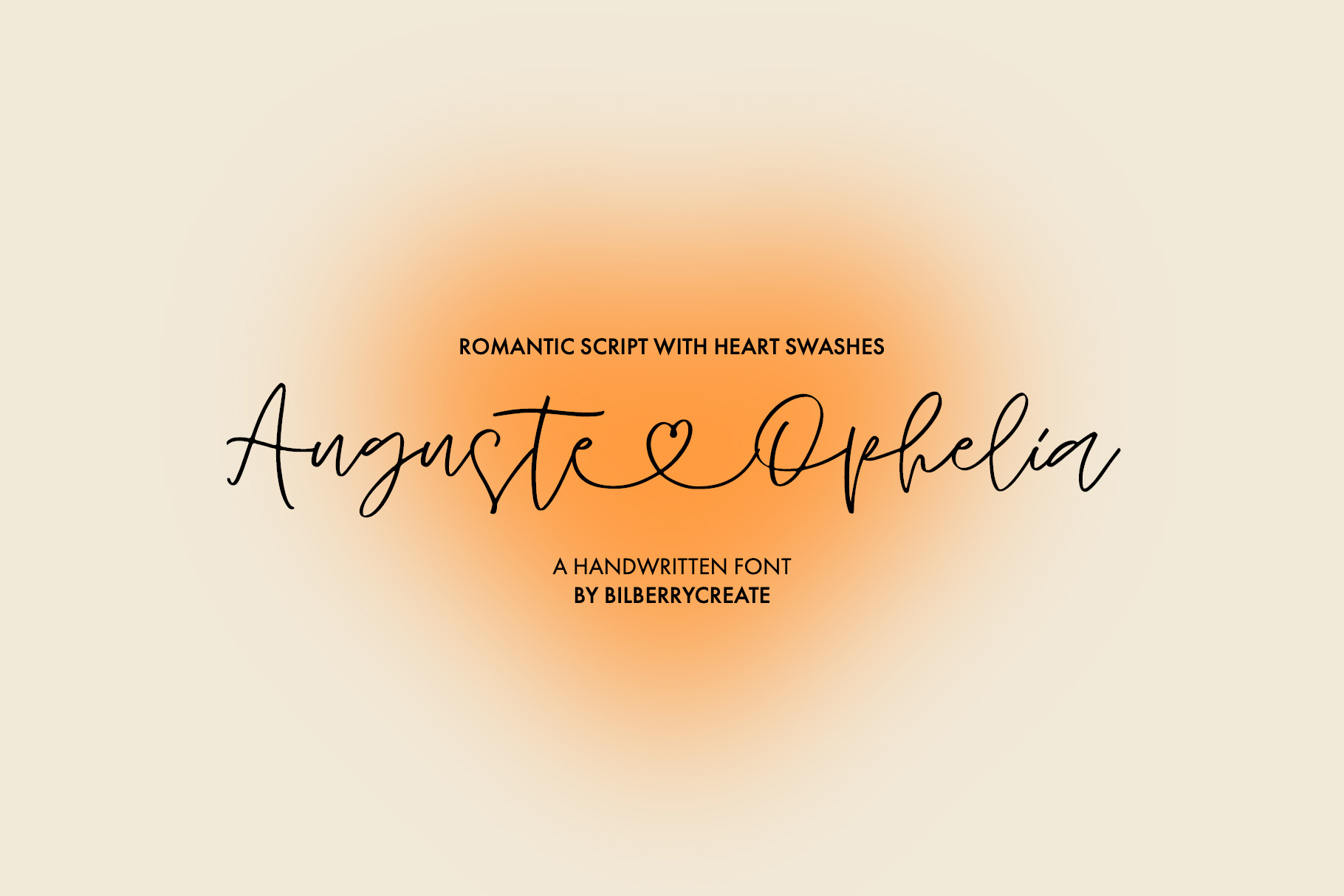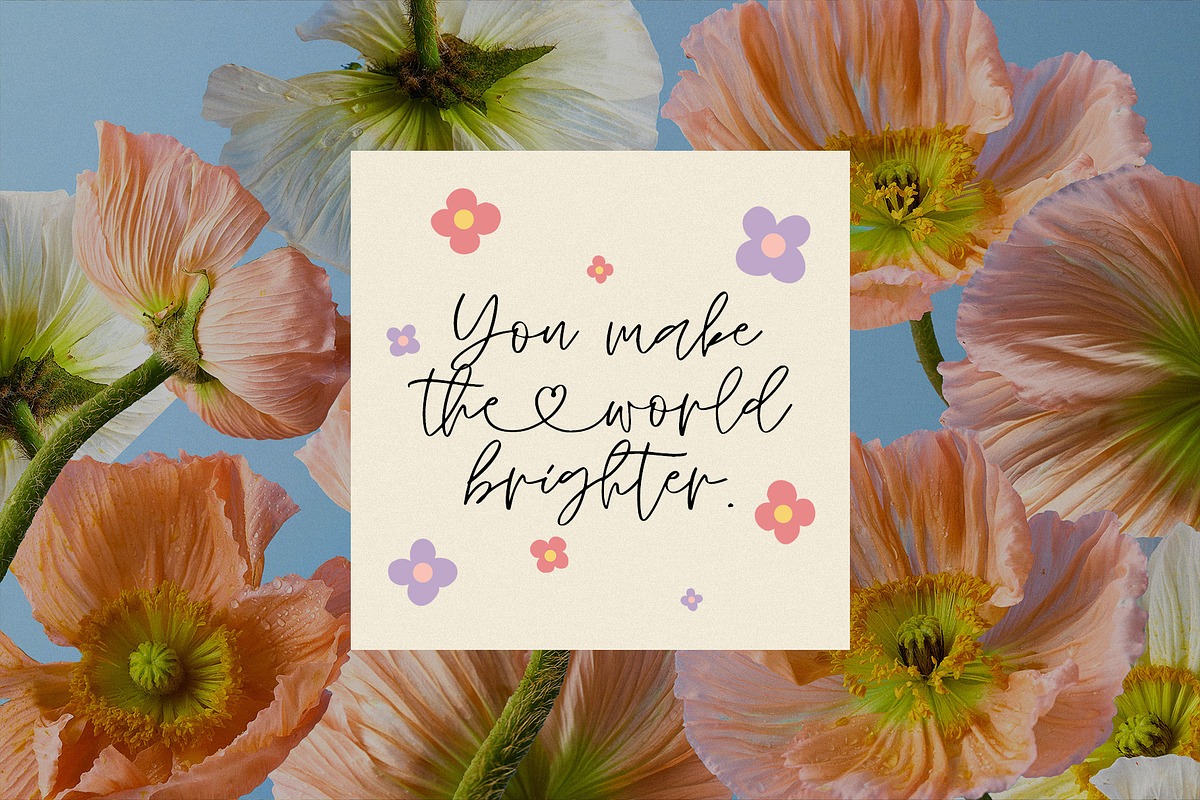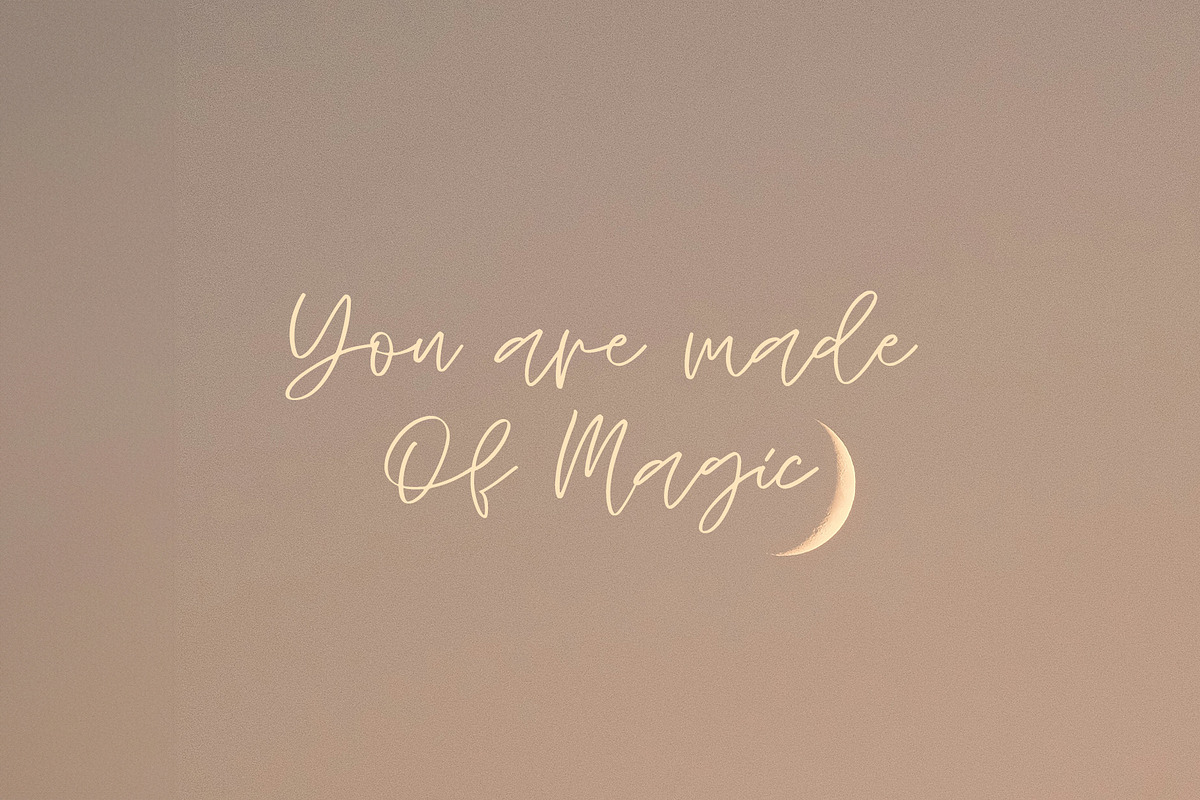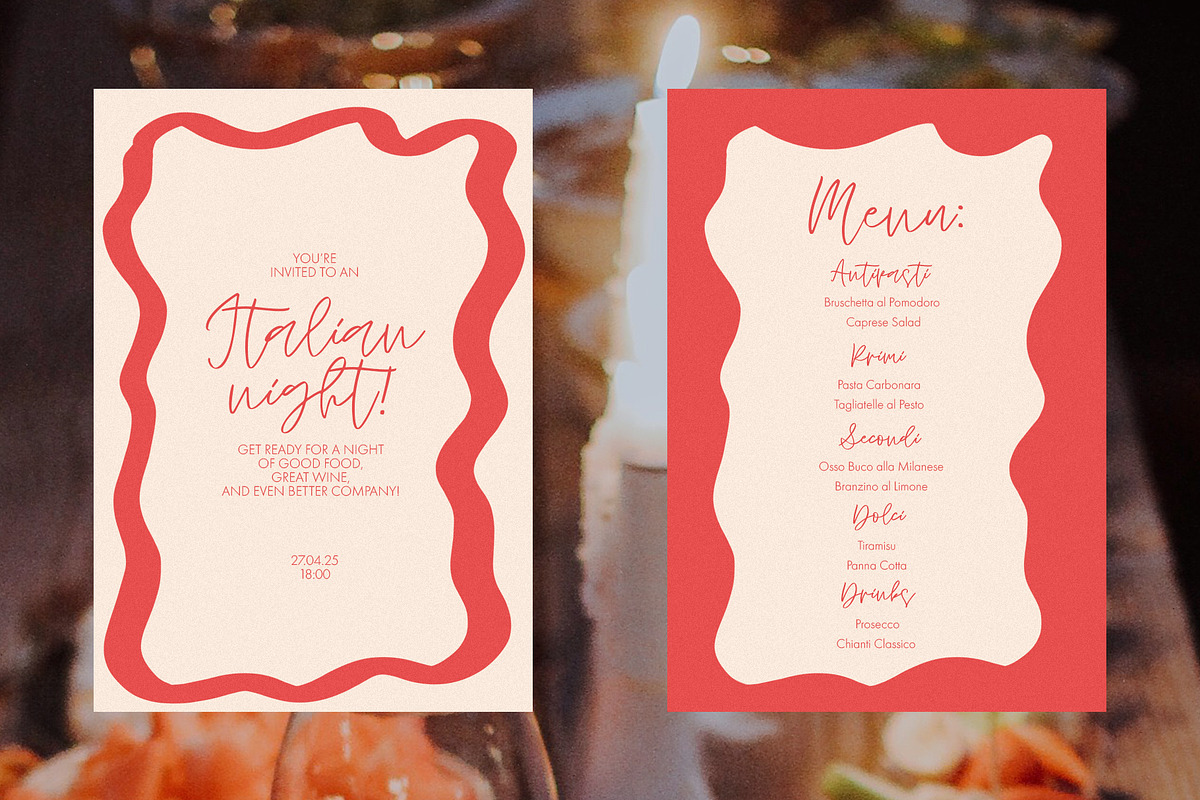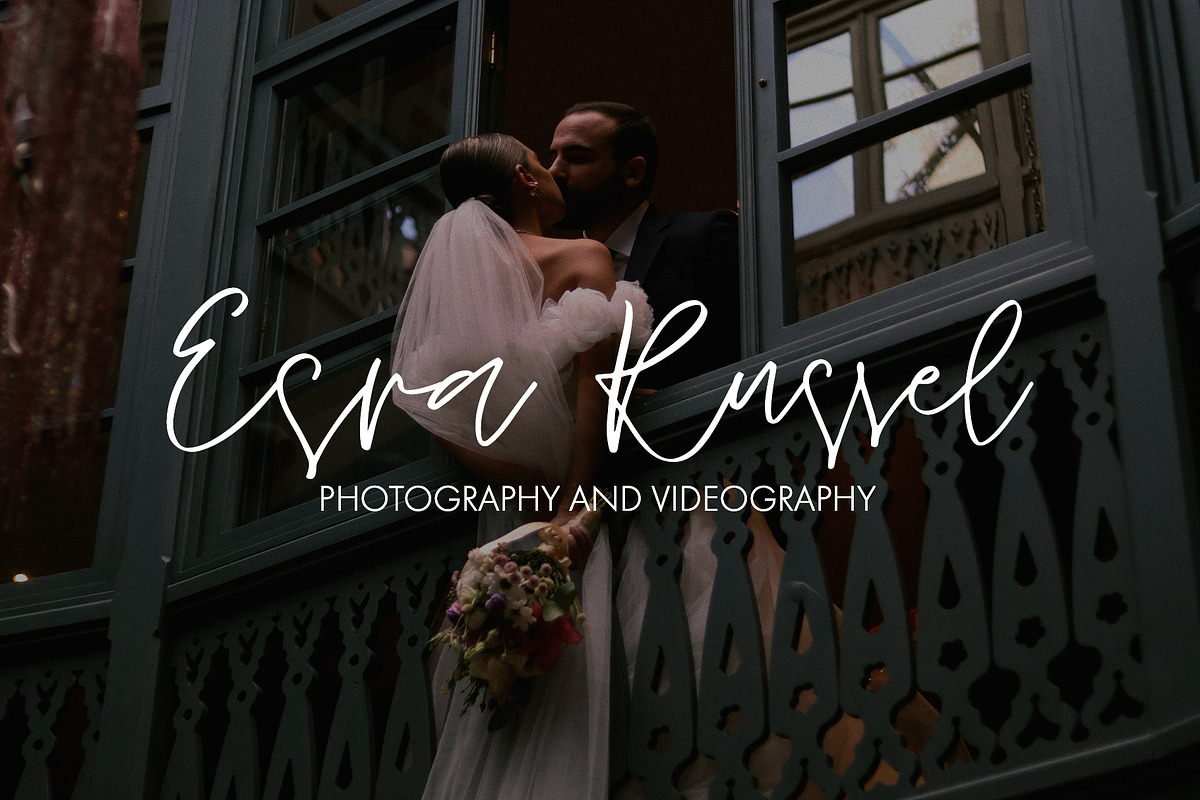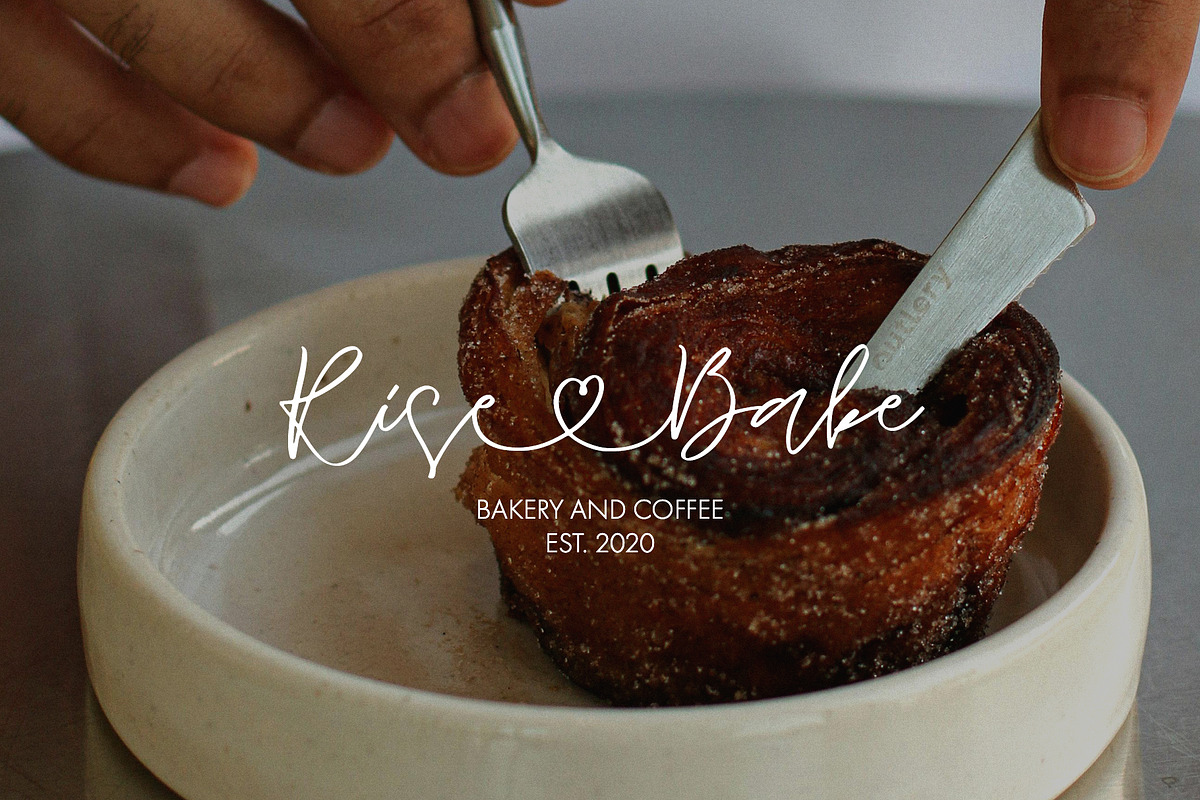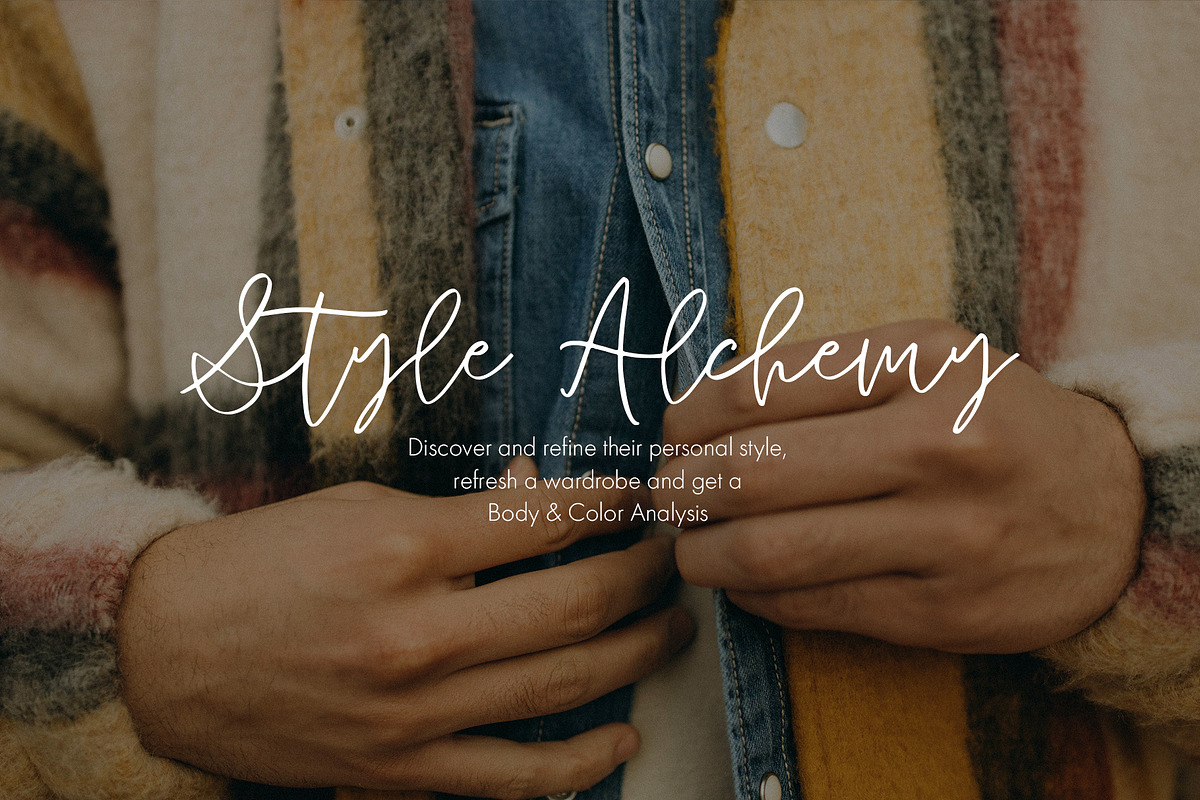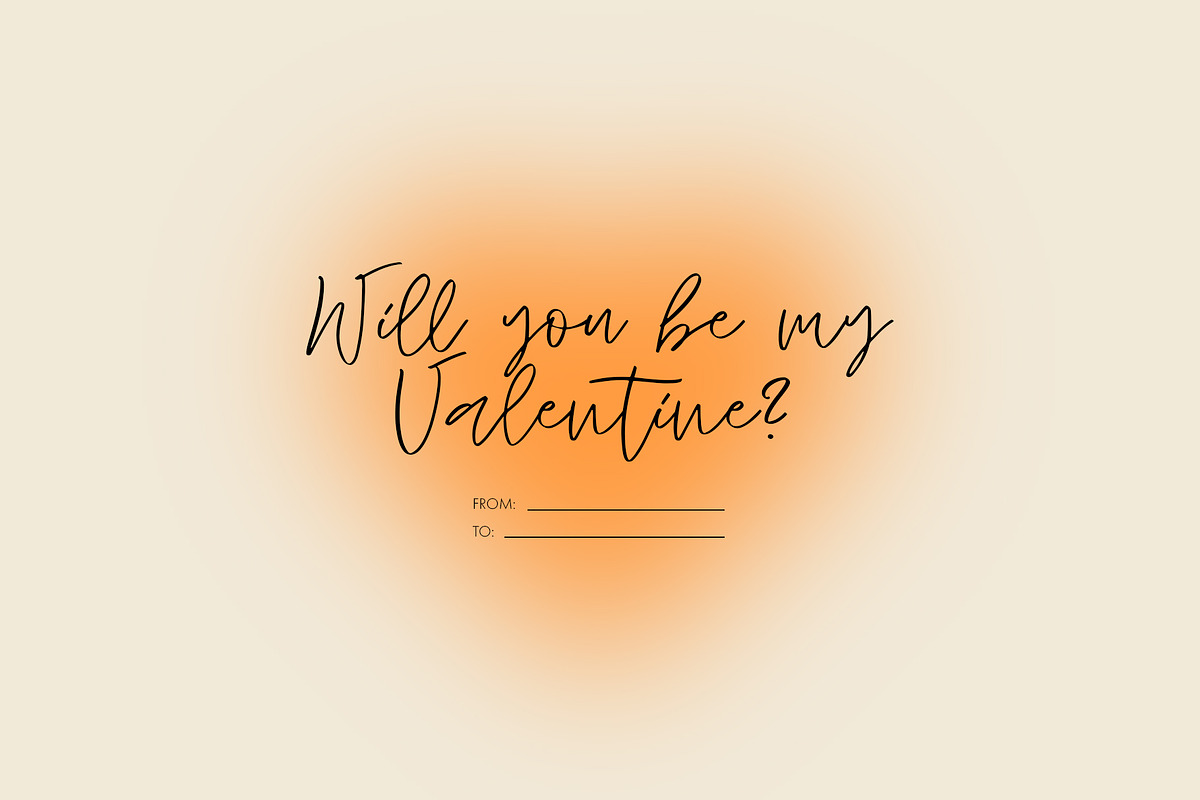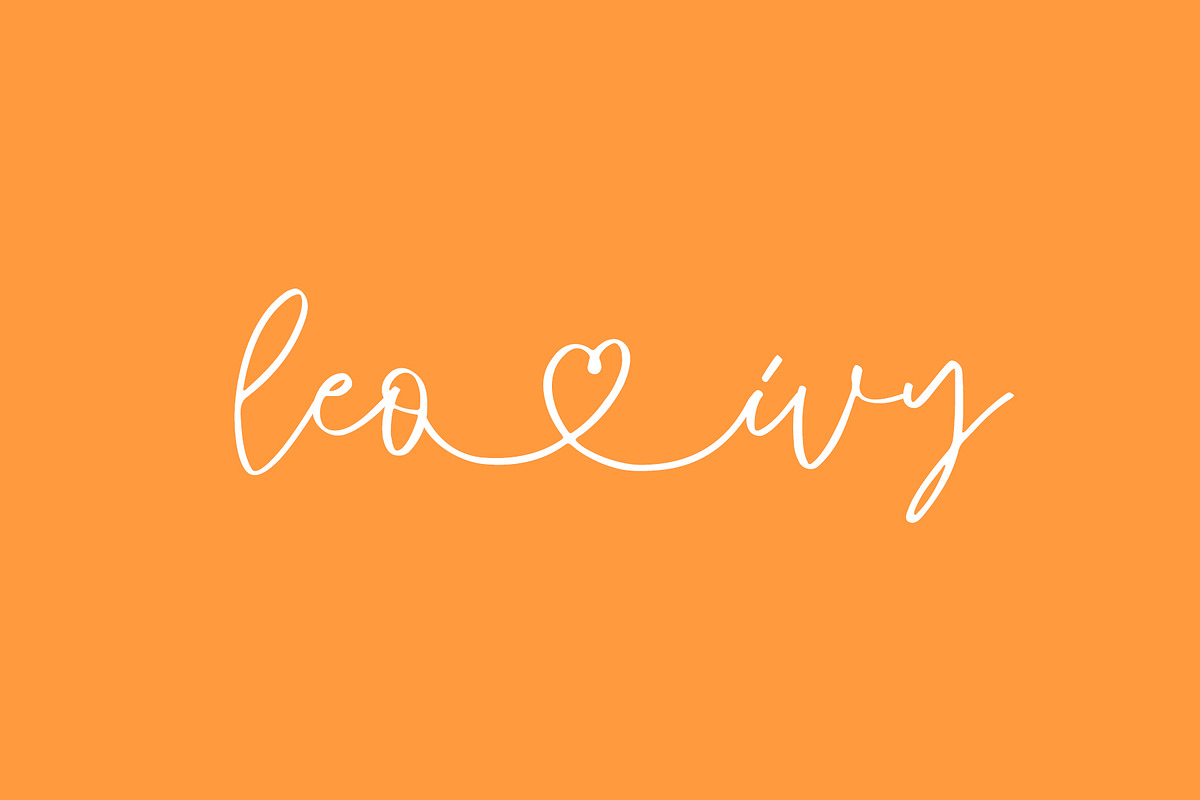
Auguste&Ophelia font
Auguste&Ophelia - romantic handwritten font!
This is a perfect handwritten font for any project. Be sure to click on the image to see all elements. This product was created to help you make your digital images even more beautiful and unique.
This pack can be used to create anything as you wish, logos invitation cards, wedding cards, birthday cards, home decor, packaging holiday gifts, party decorations, print on fabrics and so much more.